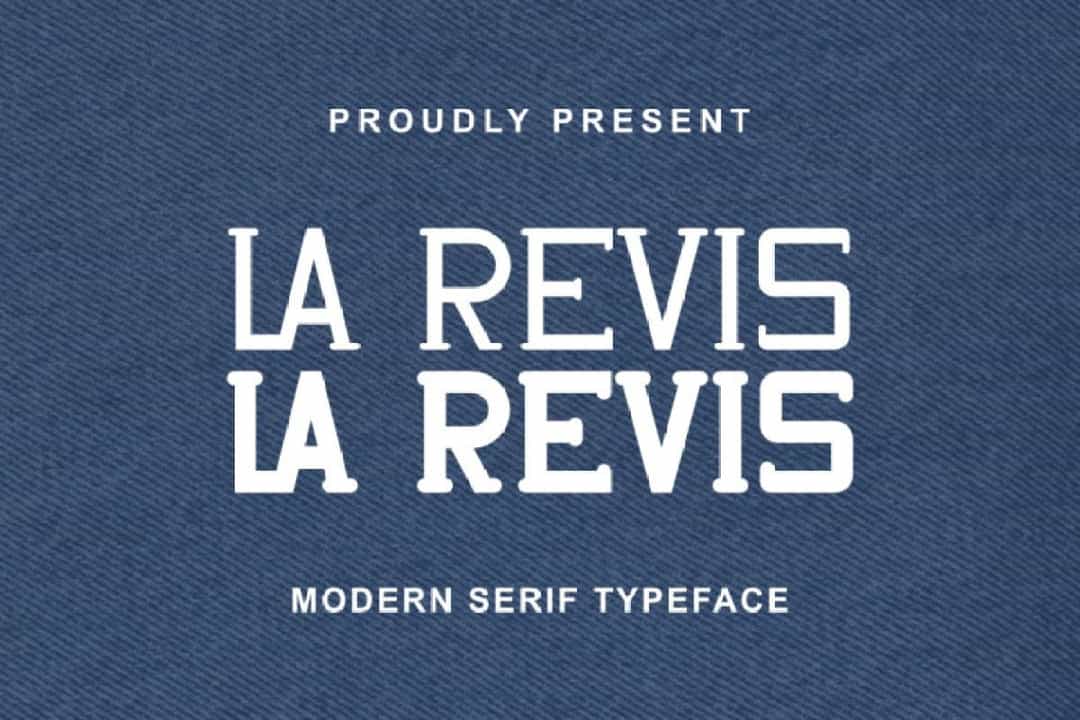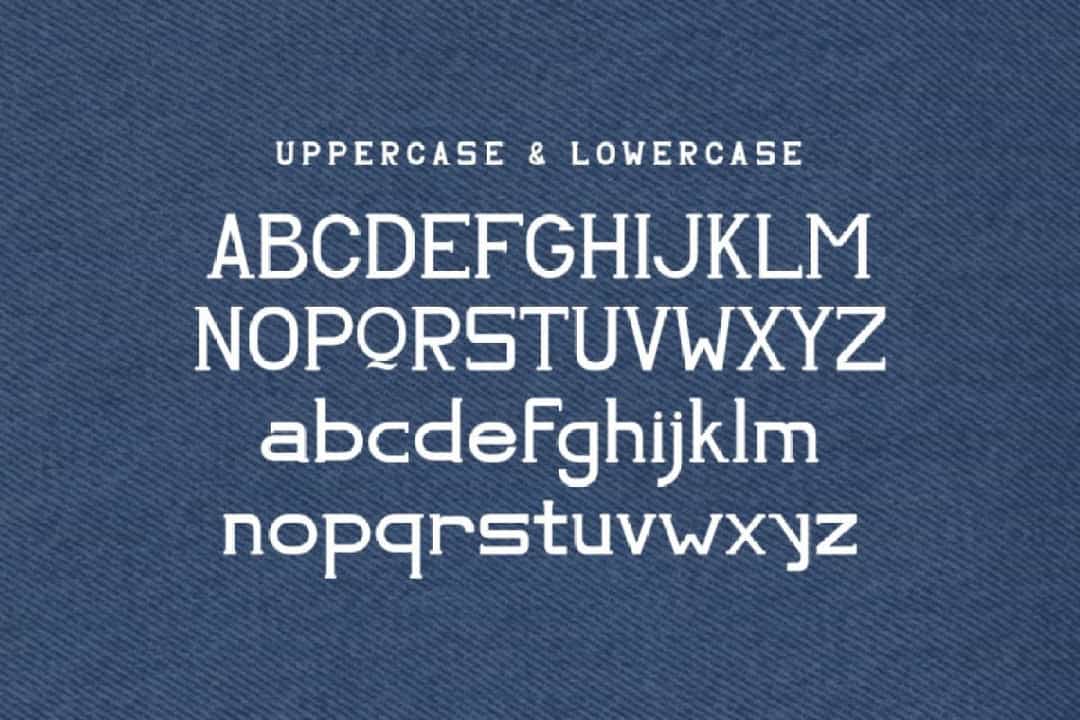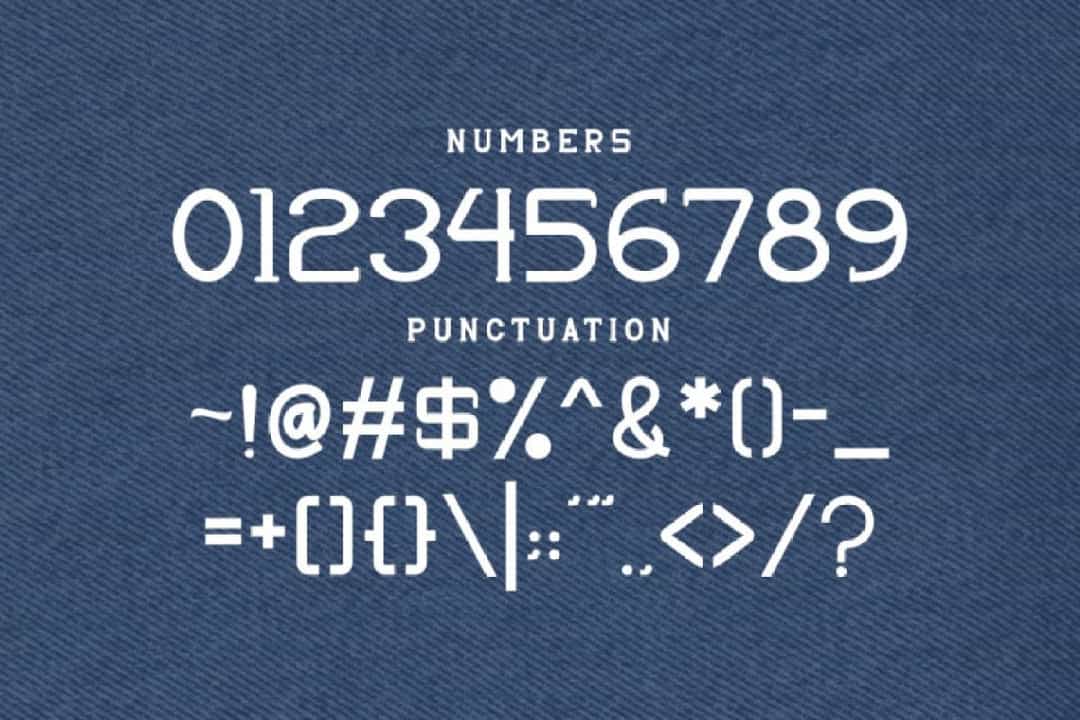
La Revis is an eye-catching contemporary and masculine serif typeface, available both bold and regular versions for easy creative use in svg files, craft projects, graphic t-shirt printing projects, logo design for social media, Procreate stickers as well as many other projects! Perfect for bold logo designs!